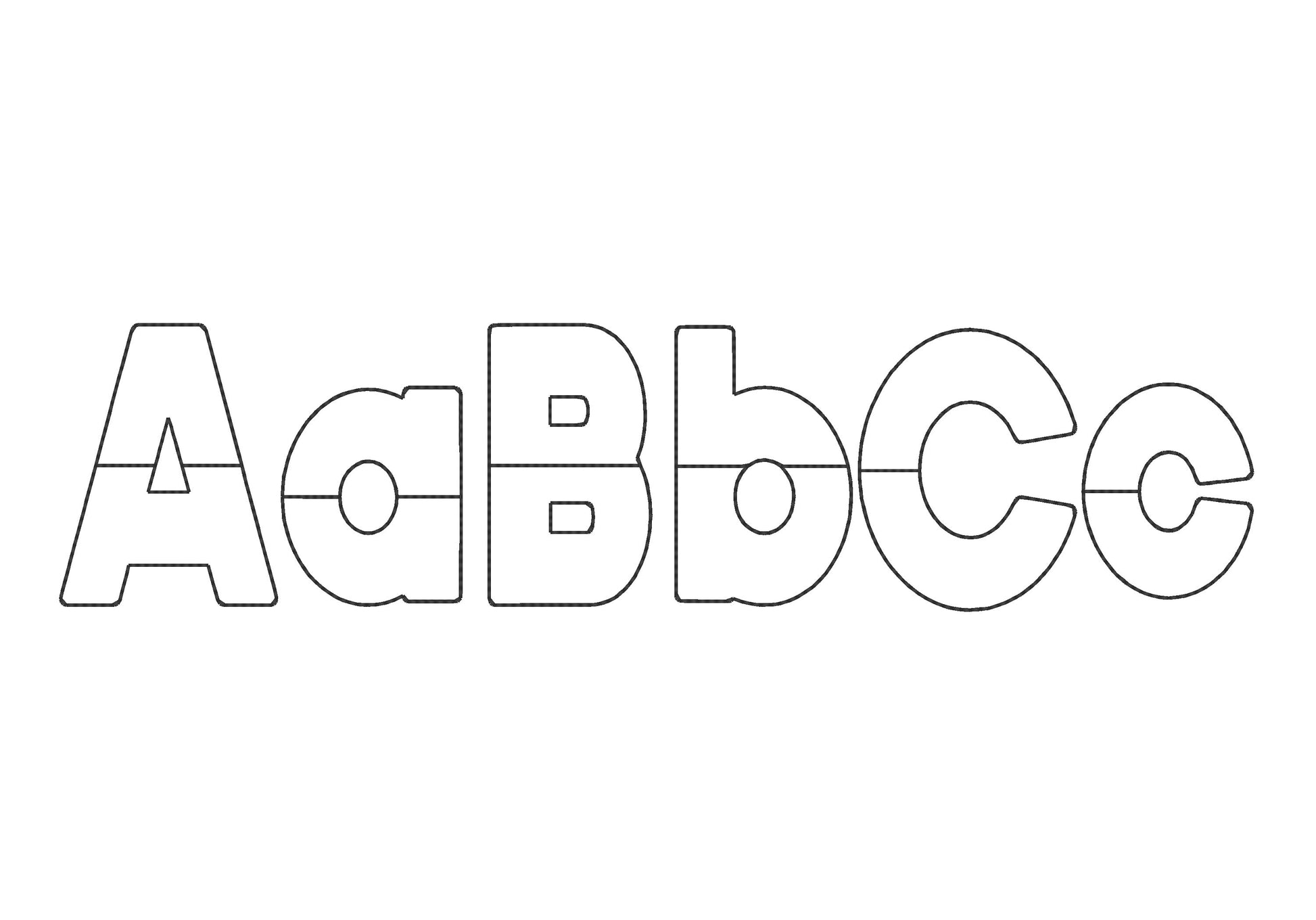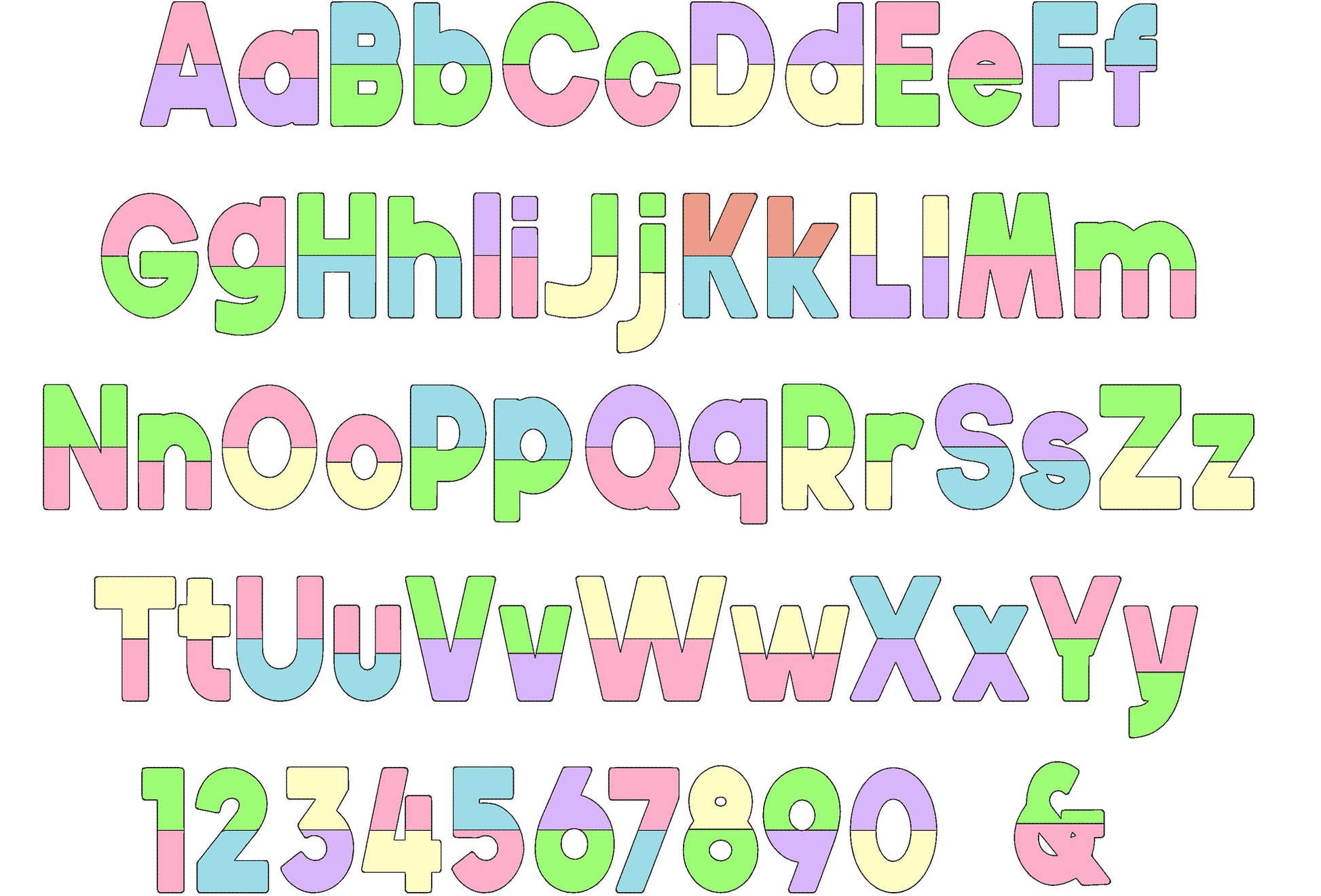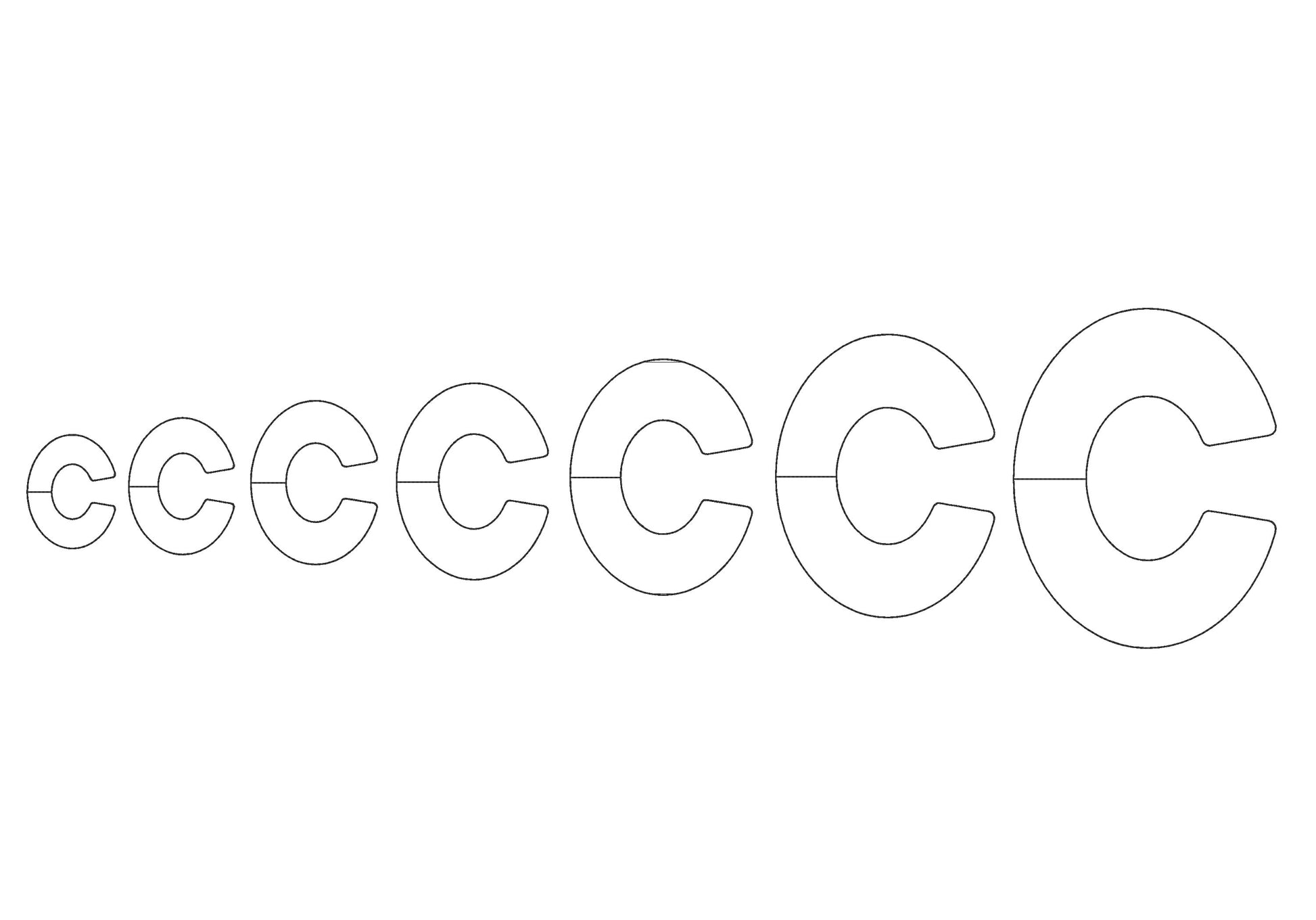
Open Edge Raggedy Applique Font
Or click to open the linkA light applique font with raggedy open edges and a bean stitch outline; letters can be split into two or more fabrics for a duotone patchwork look. Great for kids' names, quilts and pillows.
Uppercase and lowercase letters, numbers 0 to 9 and an ampersand, in seven sizes: 2, 2.5, 3, 3.5, 4, 5 and 6 inches.
- Raggedy open edge split applique font
- Uppercase and lowercase letters, numbers 0-9, ampersand
- 7 sizes, 2 to 6 in